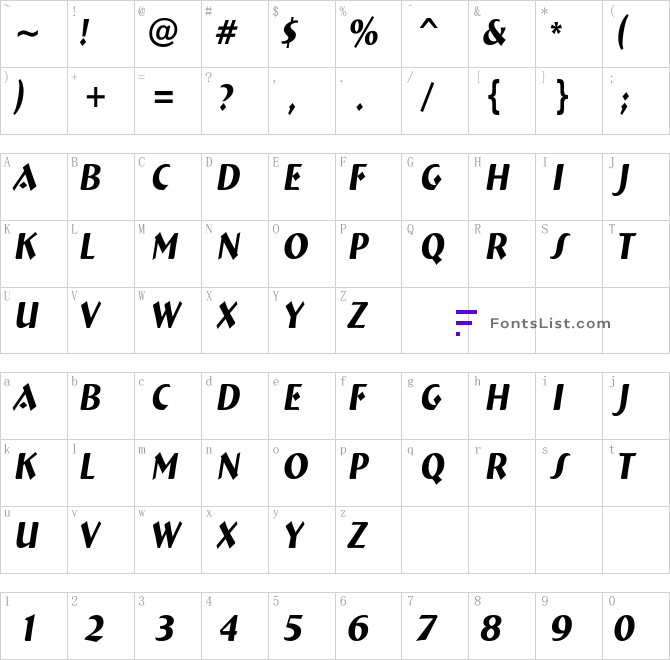
- Font Name:a_BremenNr
a_BremenNr-Italic.ttf is a very beautiful artistic font, a_BremenNr-Italic.ttf is widely used in the design and printing of various books and pictures,a_BremenNr-Italic.ttf has a strong visual impact,a_BremenNr-Italic.ttf is a commonly used font in newspapers, magazines and books, and is used in posters, e-commerce Poster design, store design, logo design, font design and other fields.a_BremenNr-Italic.